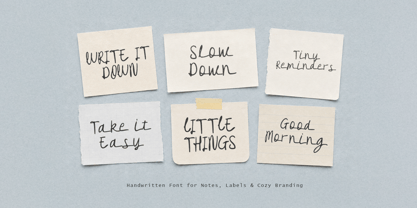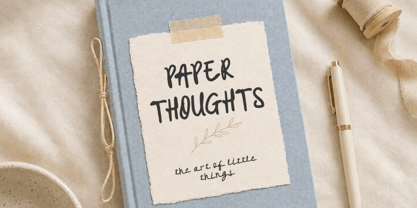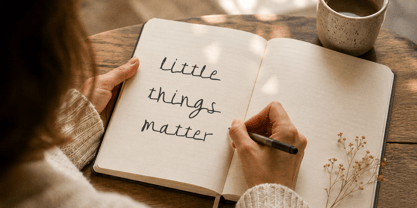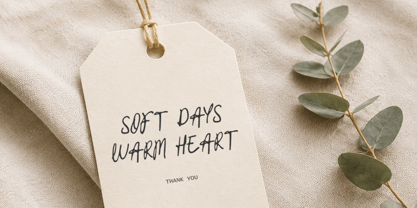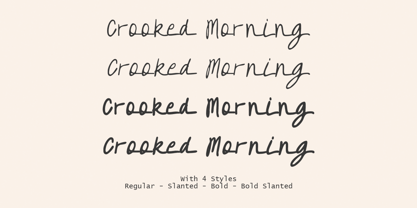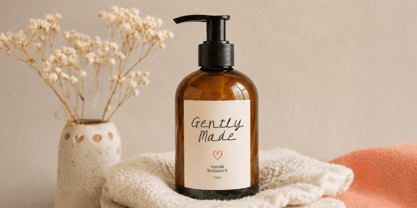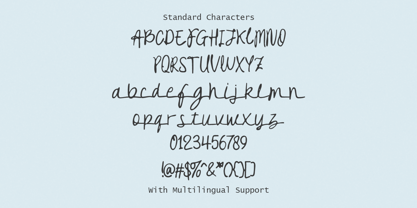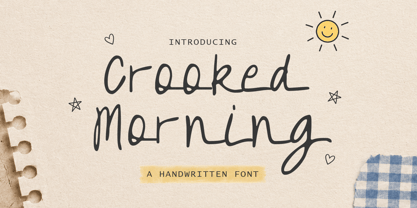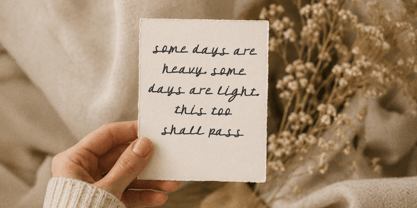
Crooked Morning
by Littlehand
The Crooked Morning Font Family was designed by Aryo Pamungkas and published by Littlehand. Crooked Morning contains 3 styles and family package options. More about this family
Crooked Morning feels like a collection of handwritten reminders scattered across a quiet desk on a slow, sunny morning. Its relaxed strokes, slightly uneven lines, and natural letterforms capture the charm of real pen-on-paper writing, creating a warm and approachable look that feels effortlessly human.
Features :
• Uppercase & lowercase
• Numbers and punctuation
• Multilingual Support
Designers: Aryo Pamungkas
Foundry: Littlehand